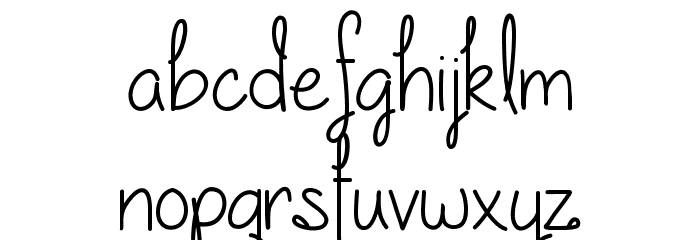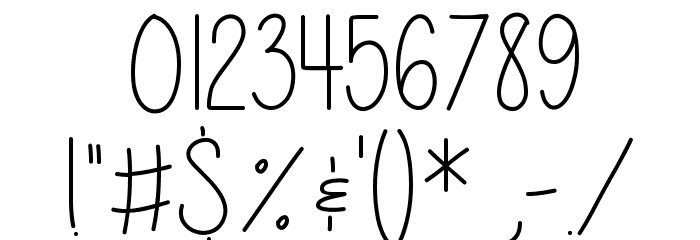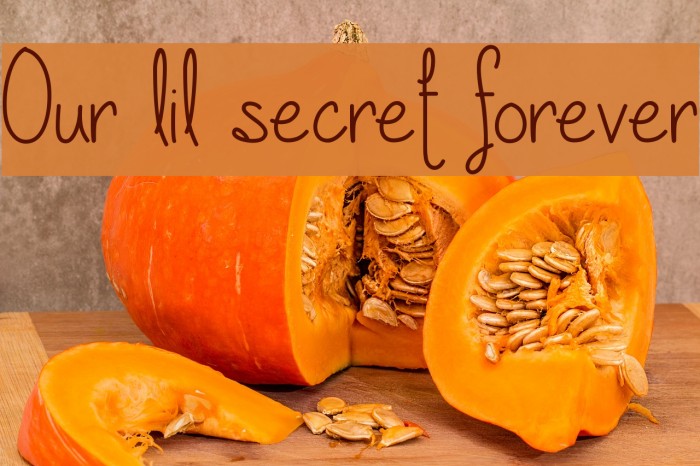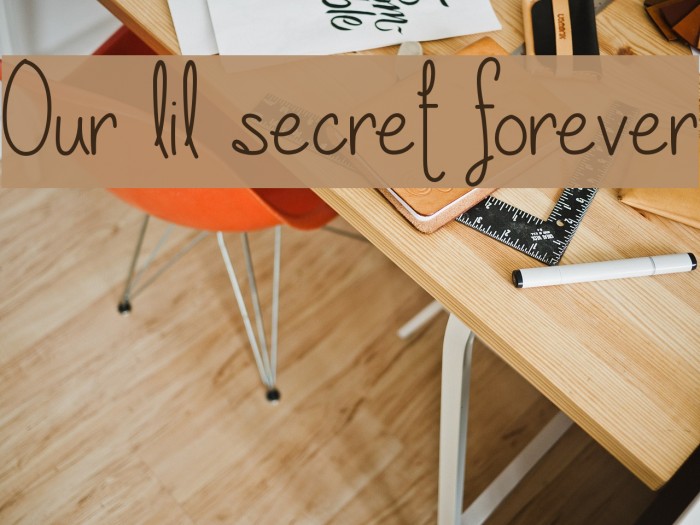
Our lil secret forever Font
This font features a playful and whimsical style, characterized by its tall, narrow letterforms and a hand-drawn appearance. The uppercase letters are elongated with a consistent stroke width, giving them a clean and modern look. The lowercase letters introduce a more decorative flair, with some characters featuring loops and curls that add a touch of elegance and charm. The numerals are straightforward and align well with the overall aesthetic, maintaining the same narrow and tall proportions. Special characters are included, matching the playful style of the alphabet. This font is well-suited for projects that require a personal, friendly touch, such as invitations, greeting cards, or playful branding.
A playful, hand-drawn font with tall, narrow letterforms and decorative lowercase letters.
- Proposed Projects: Ideal for invitations, greeting cards, playful branding, and personal projects.
- Category: Handwritten
- Overall Style: Playful, Whimsical
- Use Case: Headlines, Logos, Invitations